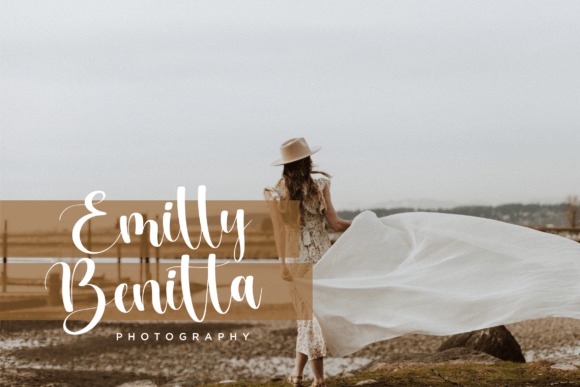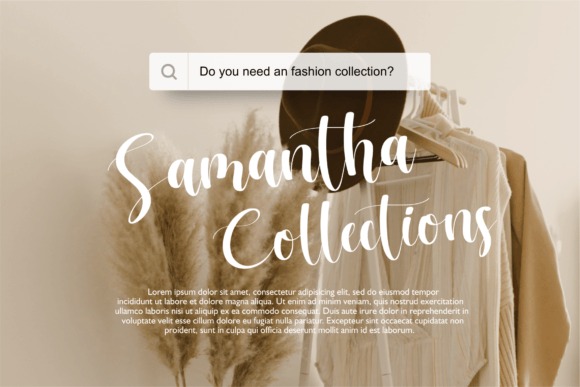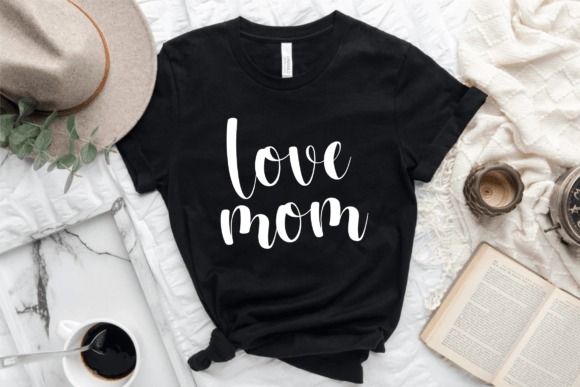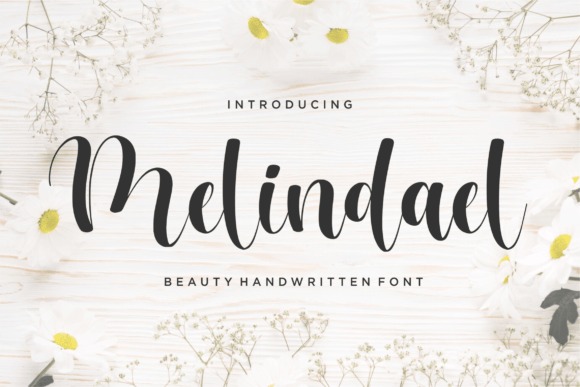
Melindael Font
Melindael Script Font
This is a Beauty Handwritten Font. Melindael is perfect for product packaging, branding project, megazine, social media, wedding, or just used to express words above the background.